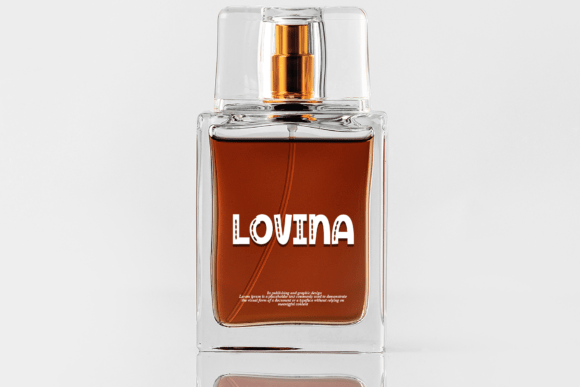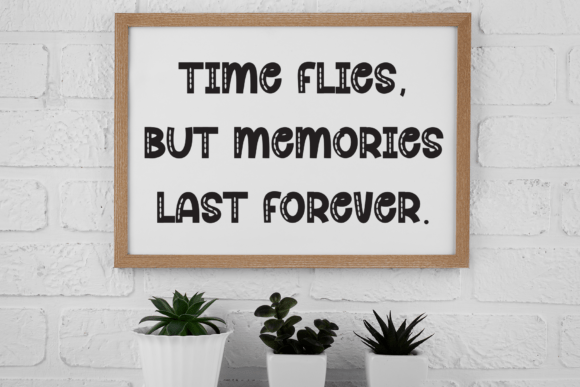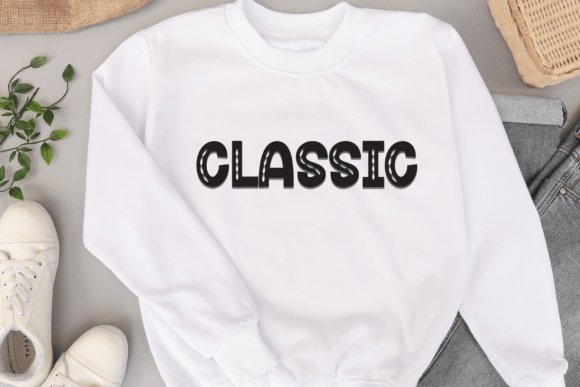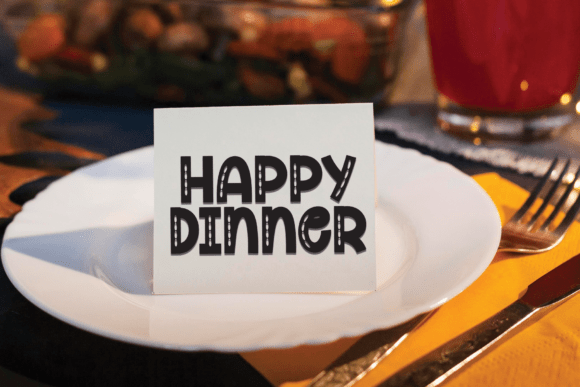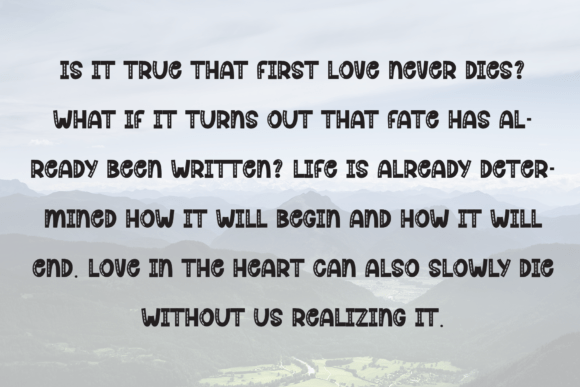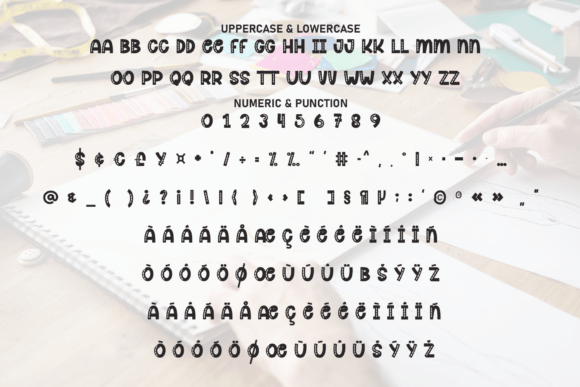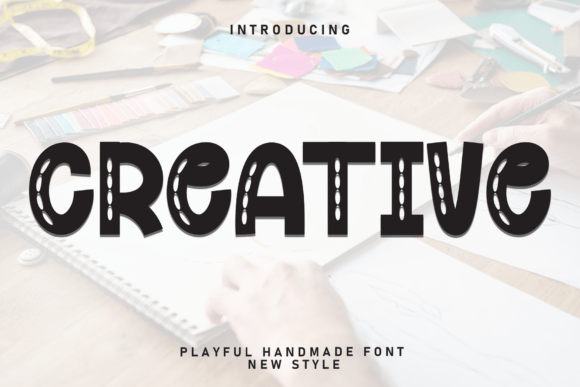
Unleash Your Creativity with Creative Font: The Ultimate Display Font for Playful Designs
Are you tired of using the same old fonts for your design projects? Do you want to add a touch of playfulness and creativity to your work? Look no further than Creative Font, a casual display font that’s perfect for bringing a relaxed and fun vibe to any project. In this article, we’ll dive into the world of Creative Font and explore its features, benefits, and uses.
What is Creative Font?
Creative Font is a bold, approachable display font that’s designed to bring a sense of fun and spontaneity to your designs. Its easygoing style makes it perfect for headlines, posters, branding, and any other project that needs a playful touch. With its relaxed and casual vibe, Creative Font is ideal for designers and crafters who want to add a personal touch to their work.
Key Features of Creative Font
- Bold and Approachable Letterforms: Creative Font features bold, easy-to-read letterforms that are perfect for headlines and titles.
- Relaxed and Playful Vibe: The font’s casual style effortlessly captures a sense of fun and spontaneity, making it perfect for creative projects.
- Easy to Read: Creative Font is designed to be easy to read, even at small sizes, making it perfect for use in a variety of applications.
- Versatile: Creative Font is versatile and can be used for a wide range of projects, from posters and flyers to branding and packaging.
Benefits of Using Creative Font
So why should you use Creative Font for your design projects? Here are just a few benefits of using this amazing display font:
- Adds a Personal Touch: Creative Font adds a personal touch to your designs, making them stand out from the crowd.
- Enhances Creativity: The font’s playful style encourages creativity and experimentation, making it perfect for designers and crafters who want to push the boundaries of their work.
- Perfect for Headlines and Titles: Creative Font is perfect for use in headlines and titles, where its bold and approachable style can really make an impact.
- Easy to Pair with Other Fonts: Creative Font is easy to pair with other fonts, making it versatile and flexible.
Uses of Creative Font
So what can you use Creative Font for? The possibilities are endless! Here are just a few ideas to get you started:
- Posters and Flyers: Use Creative Font to create eye-catching posters and flyers that really stand out.
- Branding and Packaging: Creative Font is perfect for use in branding and packaging, where its playful style can help to create a memorable and engaging brand identity.
- Headlines and Titles: Use Creative Font to add a touch of personality to your headlines and titles.
- Social Media Graphics: Creative Font is perfect for use in social media graphics, where its bold and approachable style can really make an impact.
Tips for Using Creative Font
Here are just a few tips for using Creative Font effectively:
- Use it Boldly: Don’t be afraid to use Creative Font boldly and prominently in your designs.
- Experiment with Colors: Try out different colors and color combinations to really make Creative Font pop.
- Pair it with Other Fonts: Don’t be afraid to pair Creative Font with other fonts to create a unique and engaging look.
- Have Fun: Most importantly, have fun with Creative Font! Its playful style encourages experimentation and creativity, so don’t be afraid to try new things.
In conclusion, Creative Font is a versatile and engaging display font that’s perfect for designers and crafters who want to add a touch of playfulness and creativity to their work. With its bold and approachable letterforms, relaxed and playful vibe, and easy-to-read style, Creative Font is ideal for use in a wide range of projects, from posters and flyers to branding and packaging. So why not give it a try and see what amazing designs you can create?